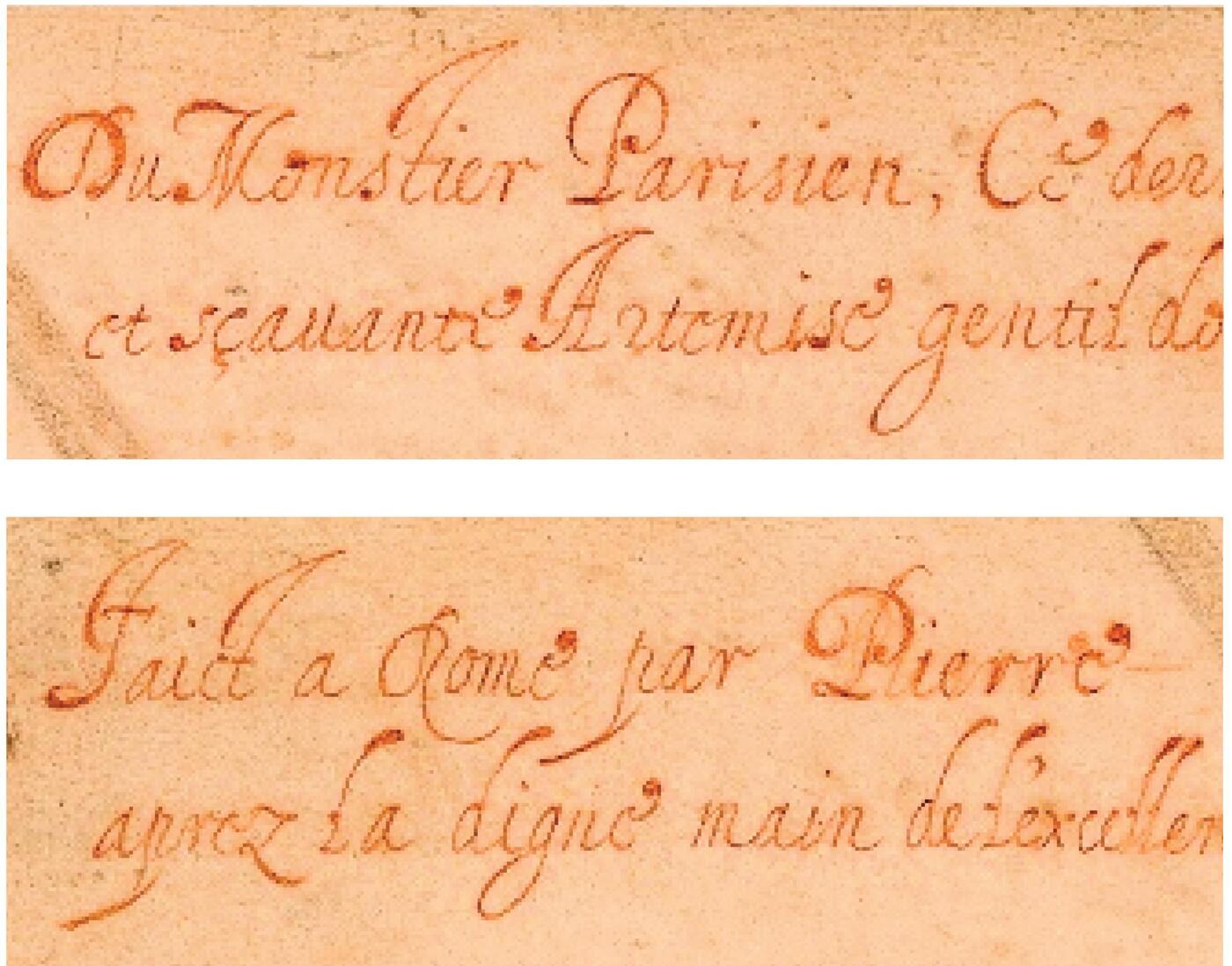
Dante's Inferno Old Book - Old Handwriting Font Identification
Hello. I'm trying to get a close match to this old handwriting font that's from an old book 'Dante's Inferno.
What you posted is just handwriting (not a font or typeface). The likelihood of finding a digital typeface that comes close to it is slim. Your sample seems more recent than 1304 (when Dante’s Inferno was written), so knowing its exact date might help us pinpoint a substitute more easily.
Vaguely similar: 1648 Chancellerie, 1610 Cancellaresca
Oldfonts.com features a number of typefaces meant to mimic handwriting from various eras, but their sources don’t go quite as far back as your sample seems to (they feature mostly late 18th, 19th century style script fonts). P22.com also features a number of typefaces based on historical handwriting.